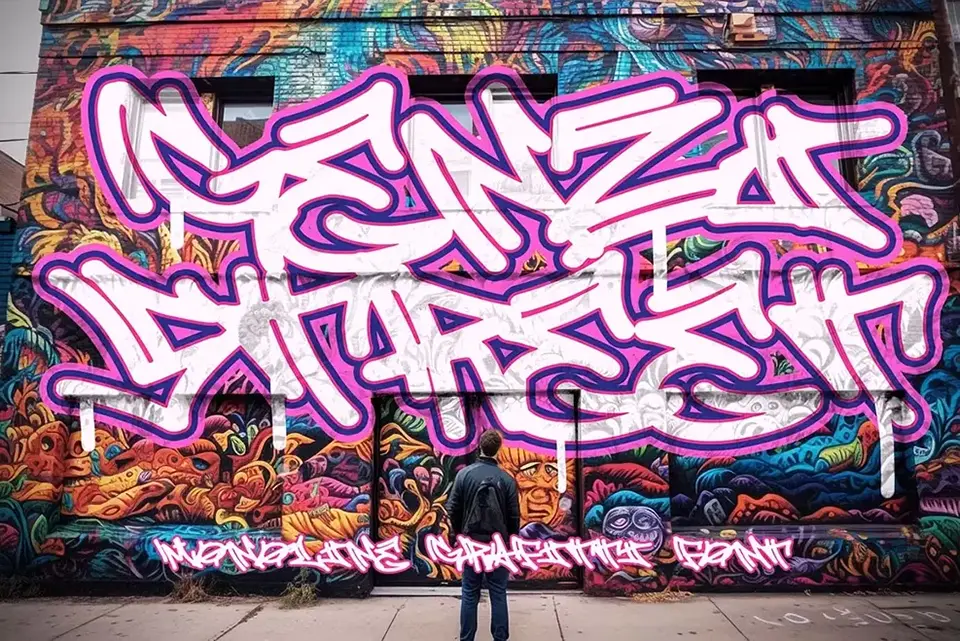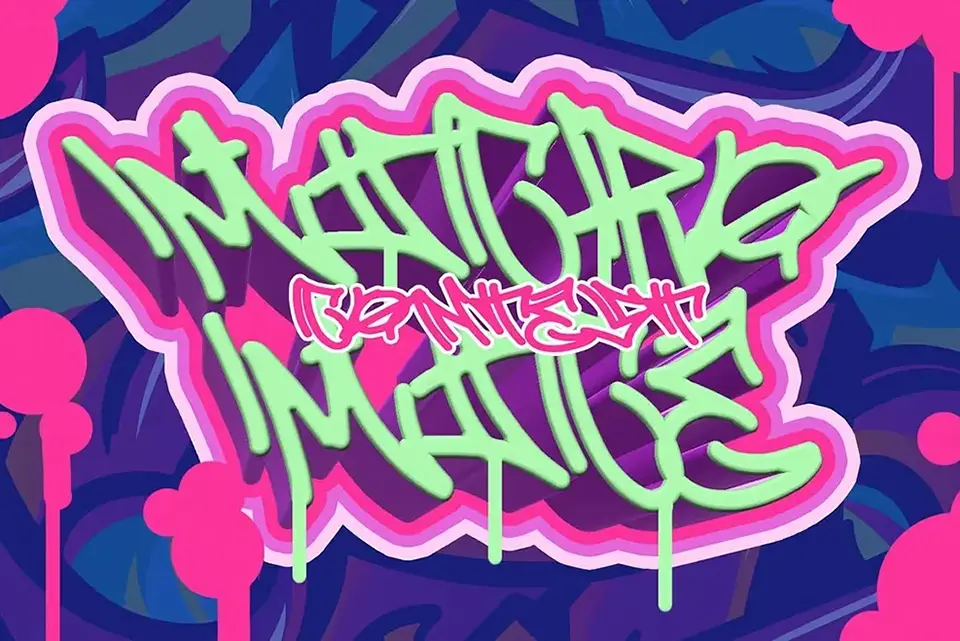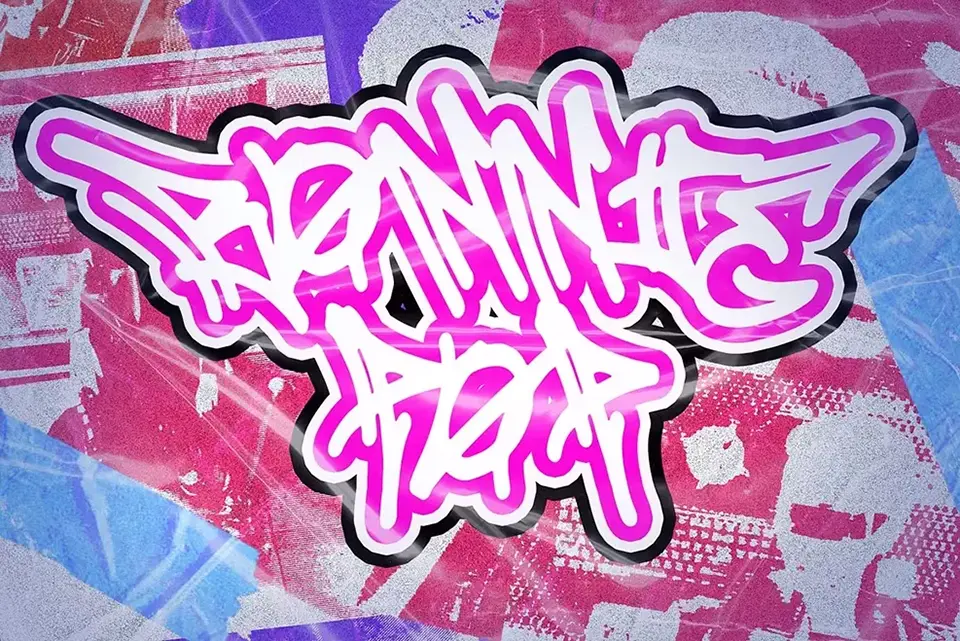
Genzi Street Graffiti Font
Genzi Street Graffiti is a vibrant graffiti-inspired display font that captures the raw energy and dynamic style of urban street art. Perfect for creative projects requiring bold, expressive typography with contemporary character and artistic flair. This font delivers distinctive visual impact for posters, album covers, branding, and eye-catching designs that demand attention.